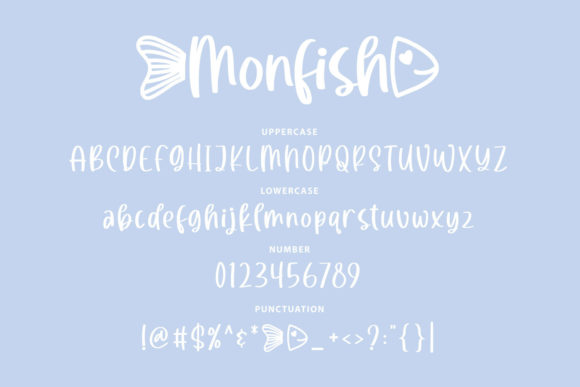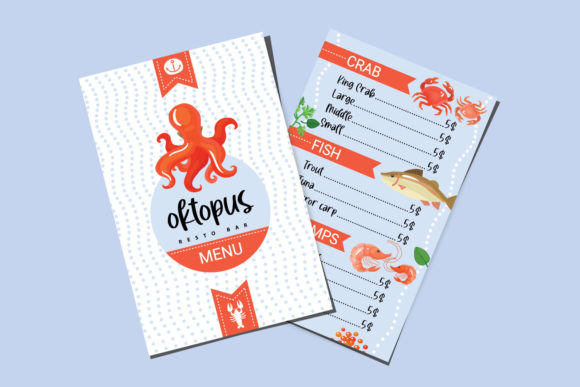
Monfish Font
db-ku.com - Script & Handwritten -- Monfish is a cool, charming, and fun handwritten font. It embodies playfulness and authenticity and is the perfect choice for any children's activity or school project.